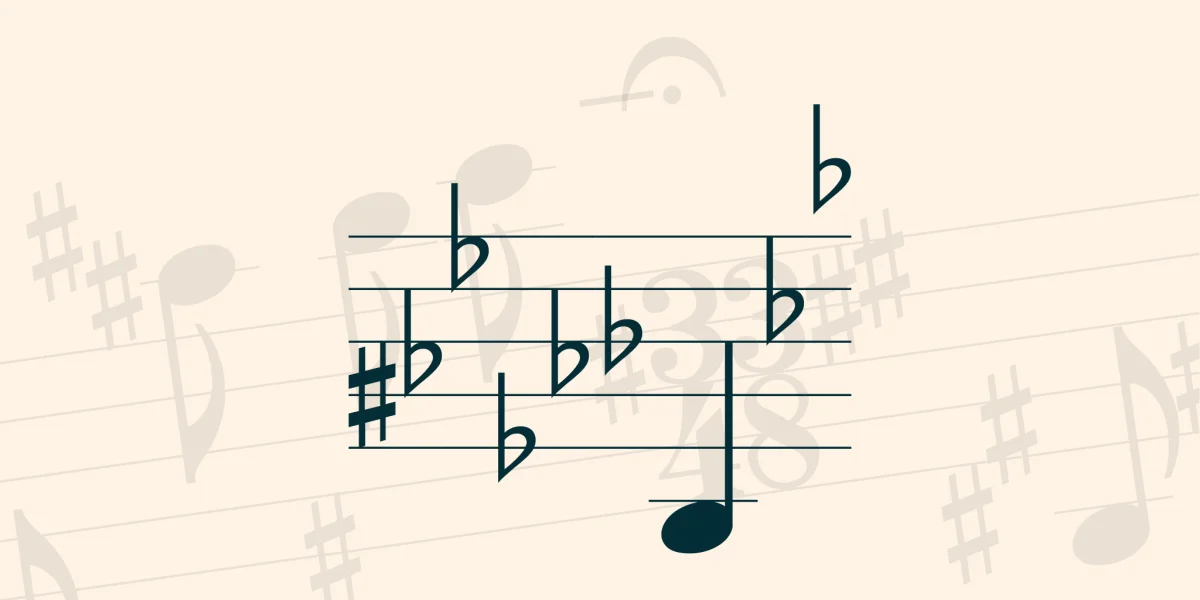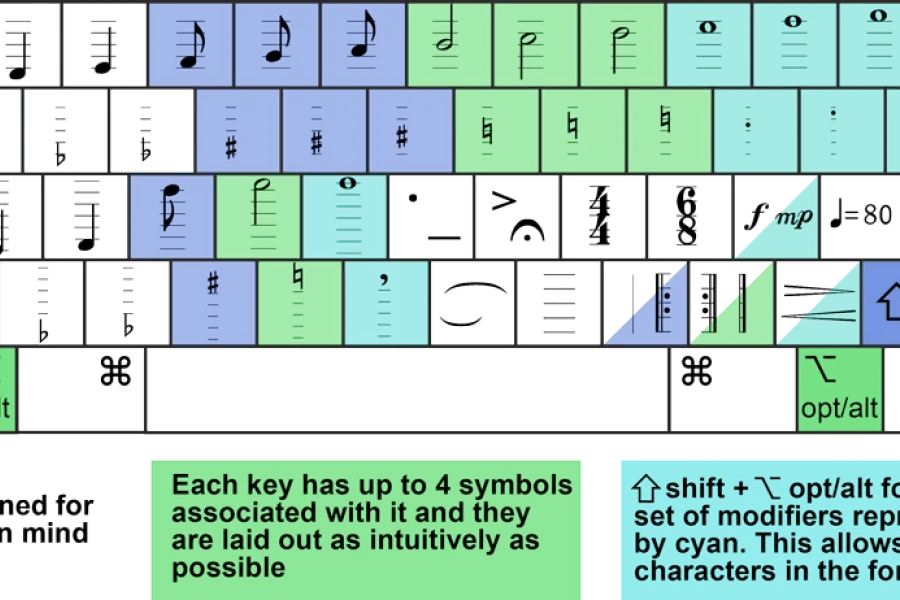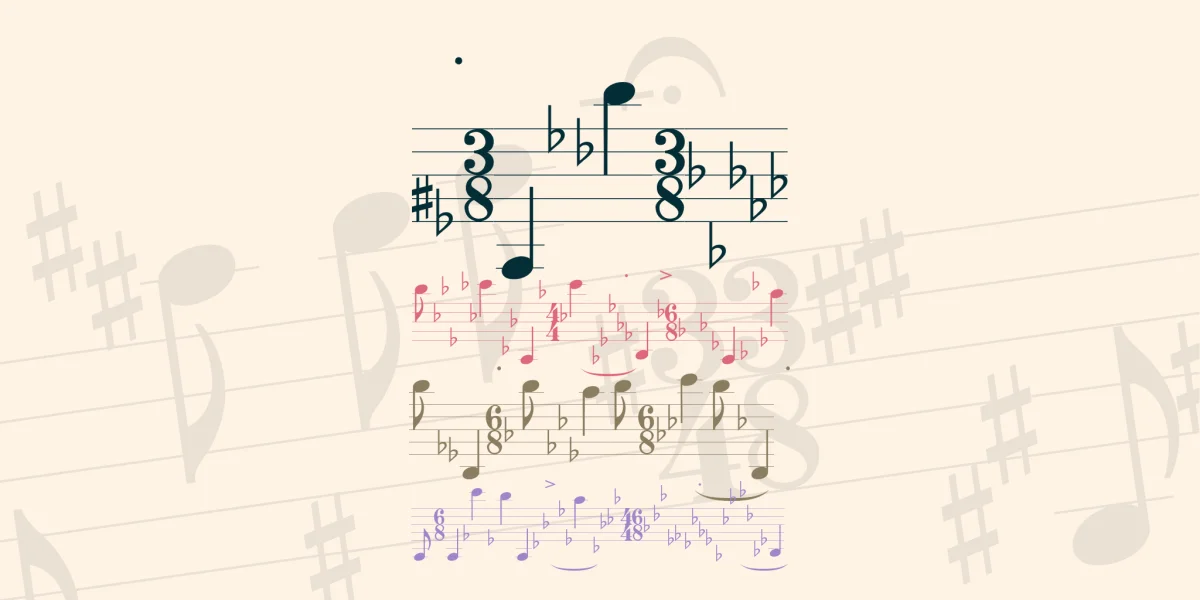
TypeMyMusic is the best, free, music composing font on the web. Compose scores, even ones with a grand staff, in your favorite text-editor of choice. Ideal for hobbyists and students alike looking for a free, easy to learn, easy to use alternative to Sibelius and Finale. Developed by Christopher Cinq-Mars Jarvis and music teacher Jocelyn Kraus.